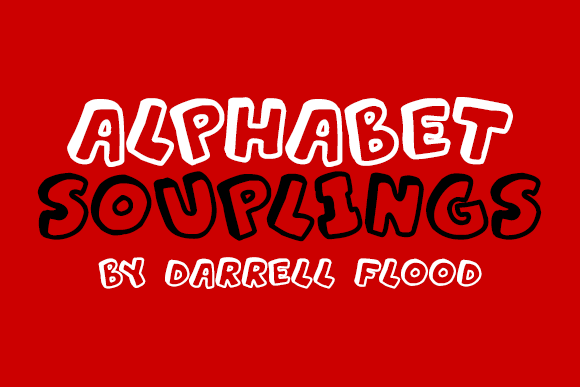
Introducing Alphabet Souplings Font: A Playful and Whimsical Typeface
Are you tired of using the same old fonts in your designs? Look no further! Alphabet Souplings Font is a delightful, fun font that adds a lighthearted touch to any project. Created by talented font designer Darrell Flood, this typeface is sure to bring a smile to your face. In this article, we’ll dive into the features and benefits of Alphabet Souplings Font, and explore how you can use it to elevate your designs.
A Cute and Fun Font with a 3D Twist
Alphabet Souplings Font is a unique and playful typeface that boasts a three-dimensional aspect. The thick lines and soft edges of this font combine to create a lighthearted feeling that’s perfect for designs that require a bit of whimsy. Whether you’re working on a children’s book, a craft project, or a fun marketing campaign, Alphabet Souplings Font is sure to add a touch of personality to your work.
Key Features of Alphabet Souplings Font
• Three-dimensional aspect: Give your designs a fun and playful edge with the 3D-like appearance of Alphabet Souplings Font.
• Thick lines and soft edges: The combination of thick lines and soft edges creates a lighthearted and airy feel that’s perfect for a variety of design applications.
• Cute and fun: Alphabet Souplings Font is the perfect choice for designs that require a bit of personality and whimsy.
• Easy to read: Despite its playful nature, Alphabet Souplings Font is easy to read and understand, making it perfect for body text and headings.
How to Use Alphabet Souplings Font in Your Designs
Alphabet Souplings Font is a versatile typeface that can be used in a variety of design applications. Here are a few ideas to get you started:
• Crafting and DIY projects: Add a personal touch to your crafting and DIY projects with Alphabet Souplings Font. Use it to create fun and playful labels, signs, and titles.
• Children’s books and educational materials: Alphabet Souplings Font is perfect for children’s books, educational materials, and other projects that require a fun and engaging typeface.
• Marketing and advertising: Use Alphabet Souplings Font to add a bit of whimsy to your marketing and advertising campaigns. It’s perfect for creating fun and eye-catching headlines and titles.
• Social media graphics: Add a playful touch to your social media graphics with Alphabet Souplings Font. Use it to create fun and engaging posts, titles, and headings.
About the Font Designer: Darrell Flood
Darrell Flood is a talented font designer with a passion for creating unique and playful typefaces. With a keen eye for detail and a deep understanding of typography, Darrell has created a range of fonts that are both functional and fun. Alphabet Souplings Font is just one example of his creative and imaginative approach to font design.
Alphabet Souplings Font is a delightful and playful typeface that’s perfect for designers and crafters who want to add a bit of whimsy to their work. With its three-dimensional aspect, thick lines, and soft edges, this font is sure to bring a smile to your face. Whether you’re working on a children’s book, a craft project, or a fun marketing campaign, Alphabet Souplings Font is a great choice. So why not add it to your font collection today and start creating fun and engaging designs?